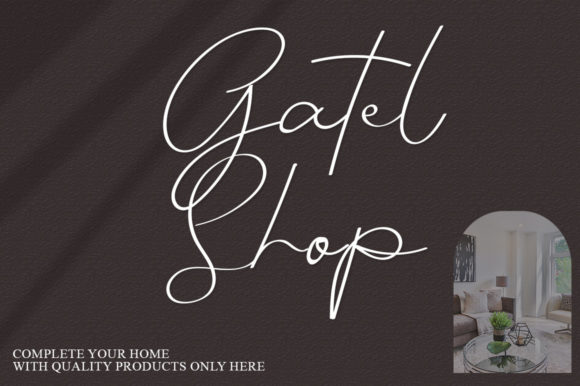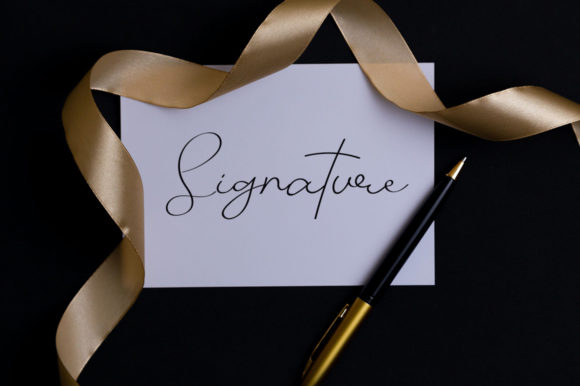
Bijique Antique Font
db-ku.com - Script & Handwritten -- Bijique Antique is a beautiful and slim script font. It is fresh, clean, and elegant. This font will look amazing in a great amount of projects, both formal and informal.